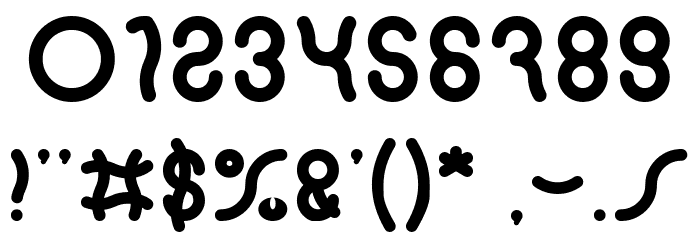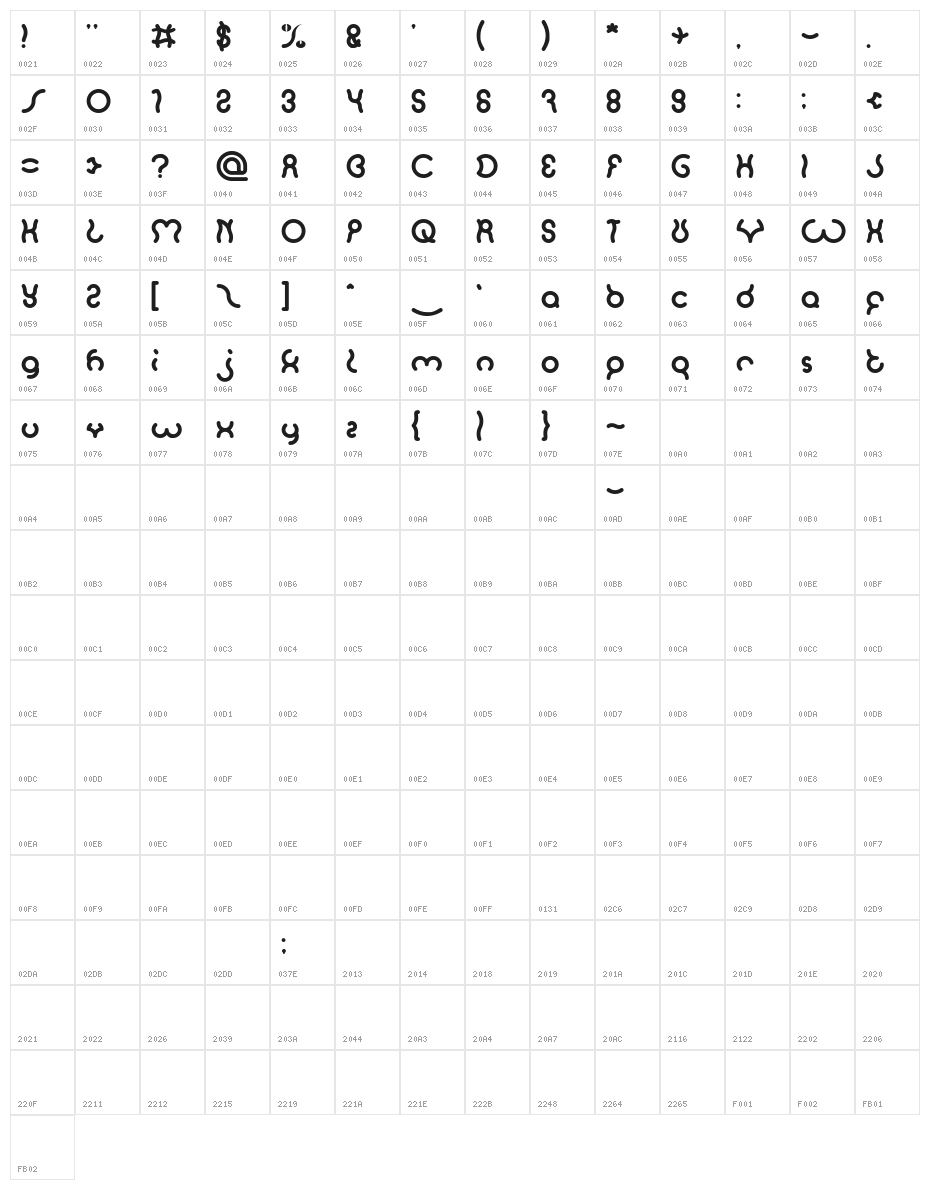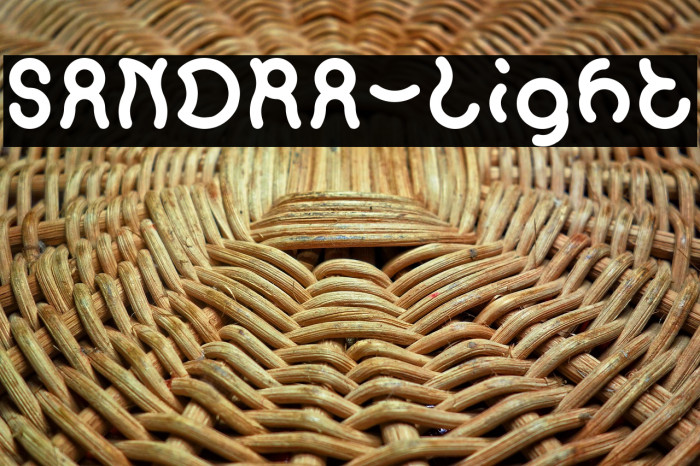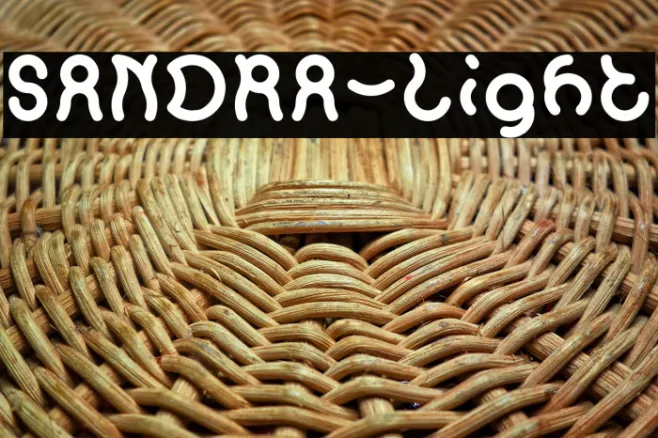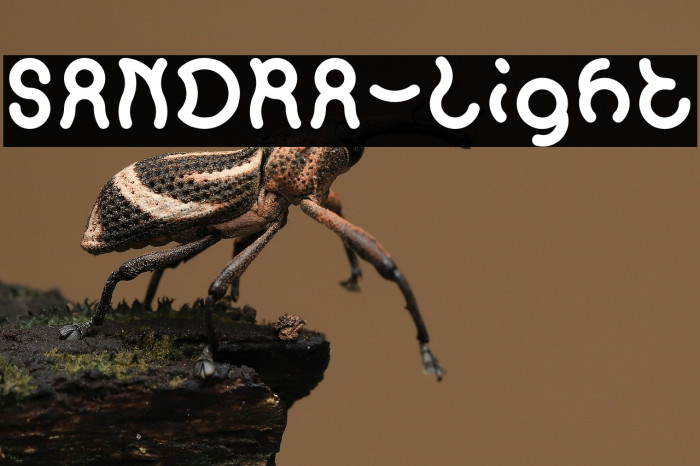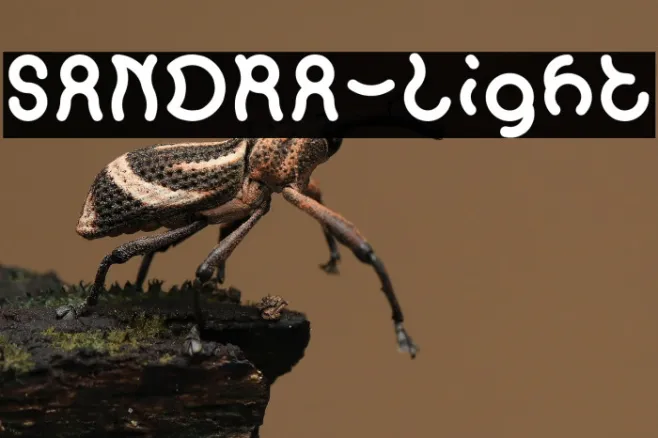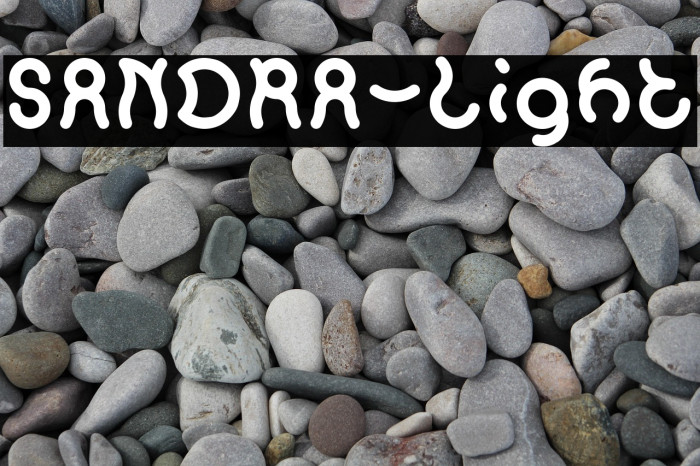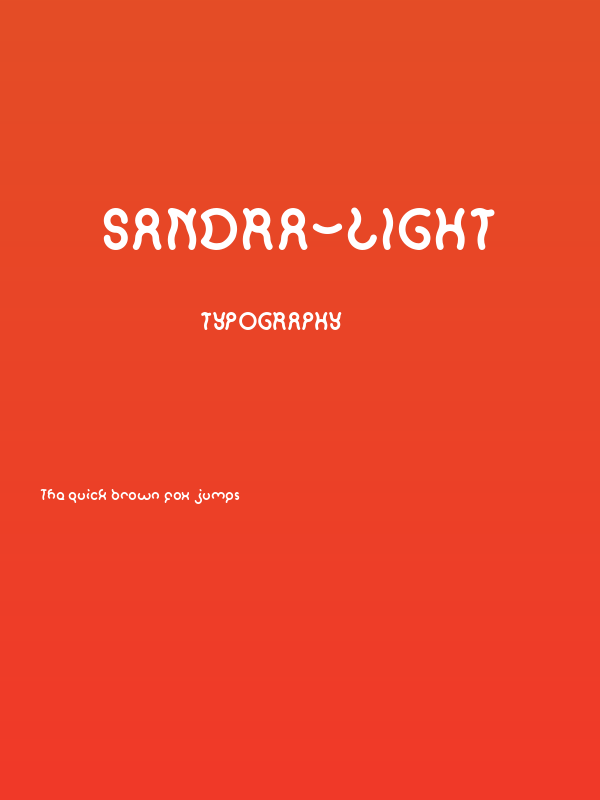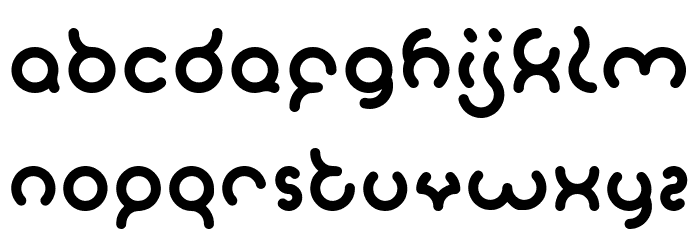
SANDRA-Light Font
SANDRA-Light Description
This font features a playful and whimsical design with rounded, bubbly characters. Each letter has a unique, curvy form that gives it a lively and dynamic appearance. The strokes are consistent in thickness, creating a uniform look across all characters. The font includes both uppercase and lowercase letters, numbers, and a variety of special characters. Its distinct style makes it stand out, offering a fun and engaging visual experience.